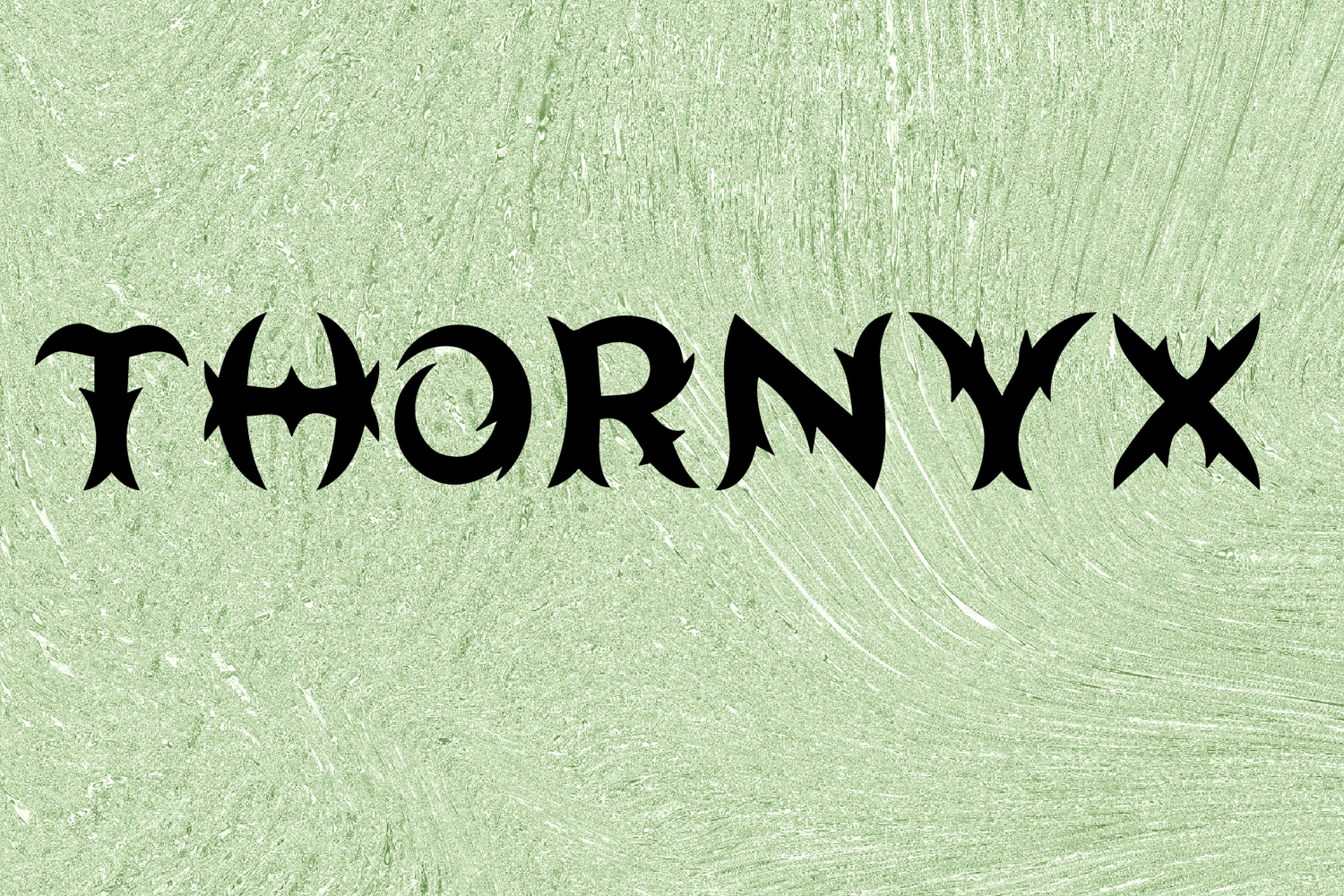
Thornyx
Thornyx is a bold decorative display font with a dark fantasy-inspired style and fierce thorned character. Its uppercase letterforms feature sharp curved spikes, dramatic pointed edges, and gothic-inspired details that create a powerful, edgy, and unforgettable look. Designed with uppercase letters A–Z and numbers 0–9, Thornyx is perfect for logos, branding, posters, packaging, headlines, and creative projects that need a striking and distinctive statement.